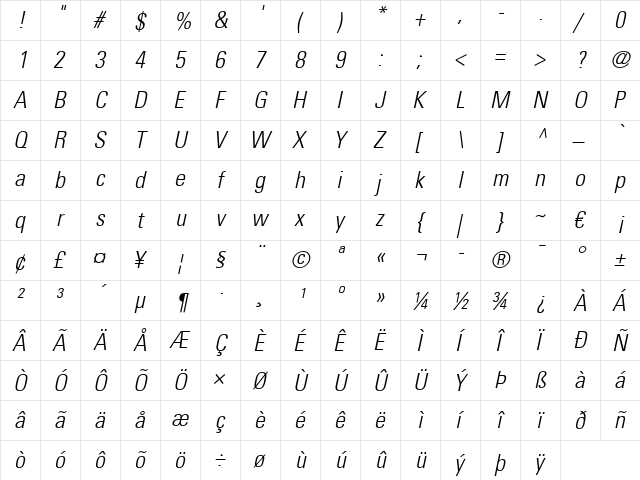
Univers LT 47 CondensedLt Italic Font Preview
Design Context for Univers LT 47 CondensedLt Typeface
Univers LT 47 CondensedLt offers clean, dependable letterforms without strong stylistic allegiance, making it a practical choice for designers who need flexibility. The dynamic lean of this cut emphasises speed and emphasis in any layout. Its slender proportions lend an understated elegance to any composition. Its narrow stance lets it pack a punch even in space-constrained designs.
Pro Tip: Try Univers LT 47 CondensedLt for annotation and caption copy alongside an upright companion — the contrast in angle creates a dynamic but ordered typographic system.